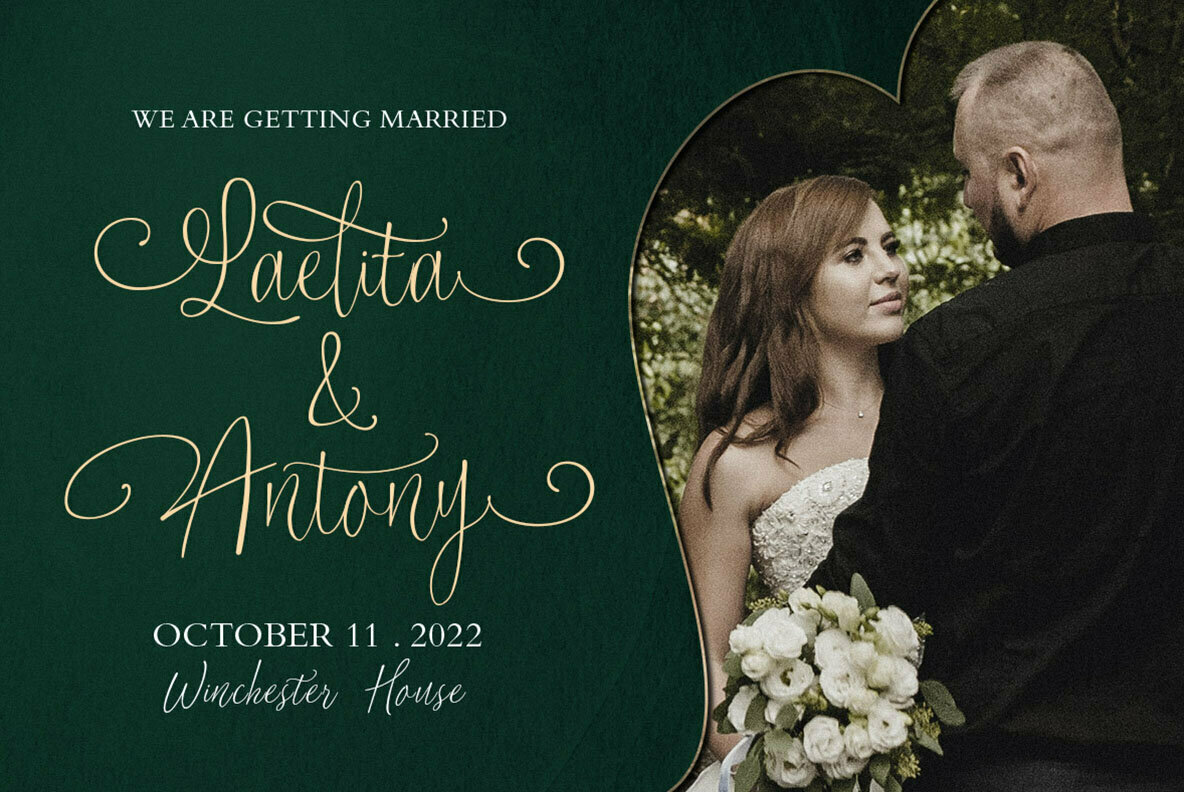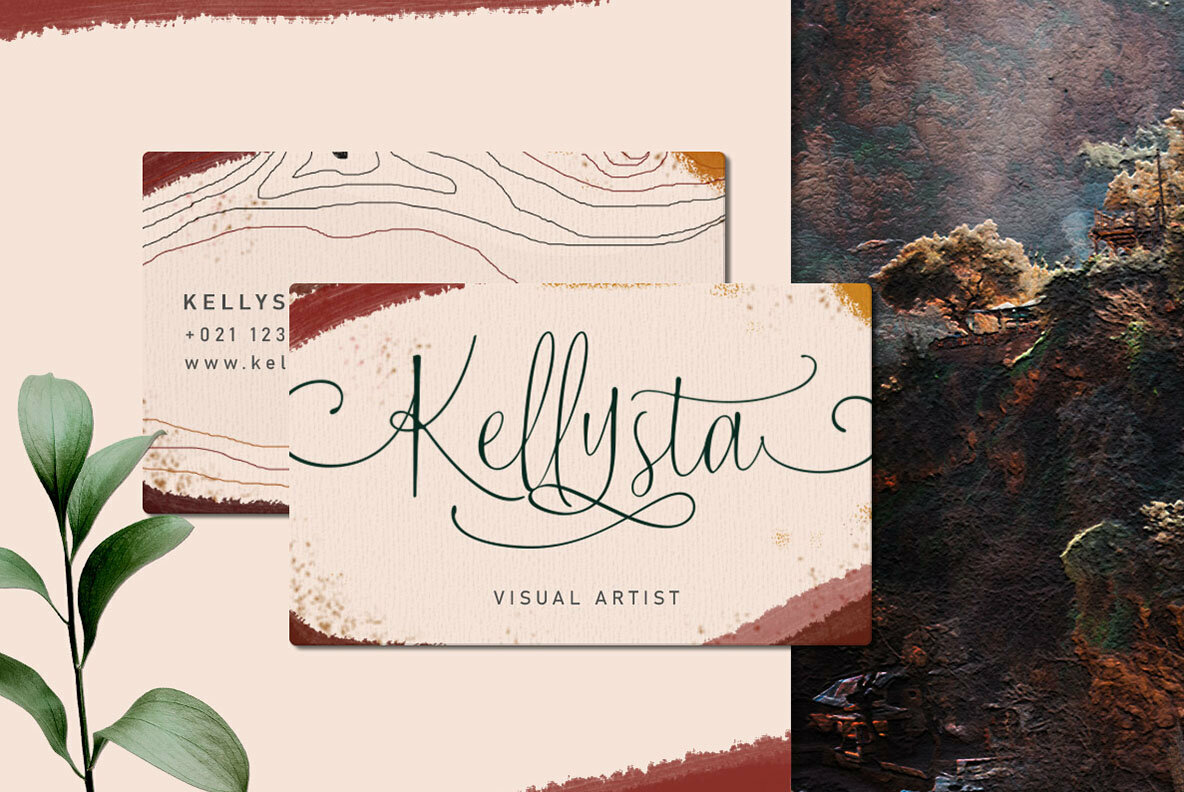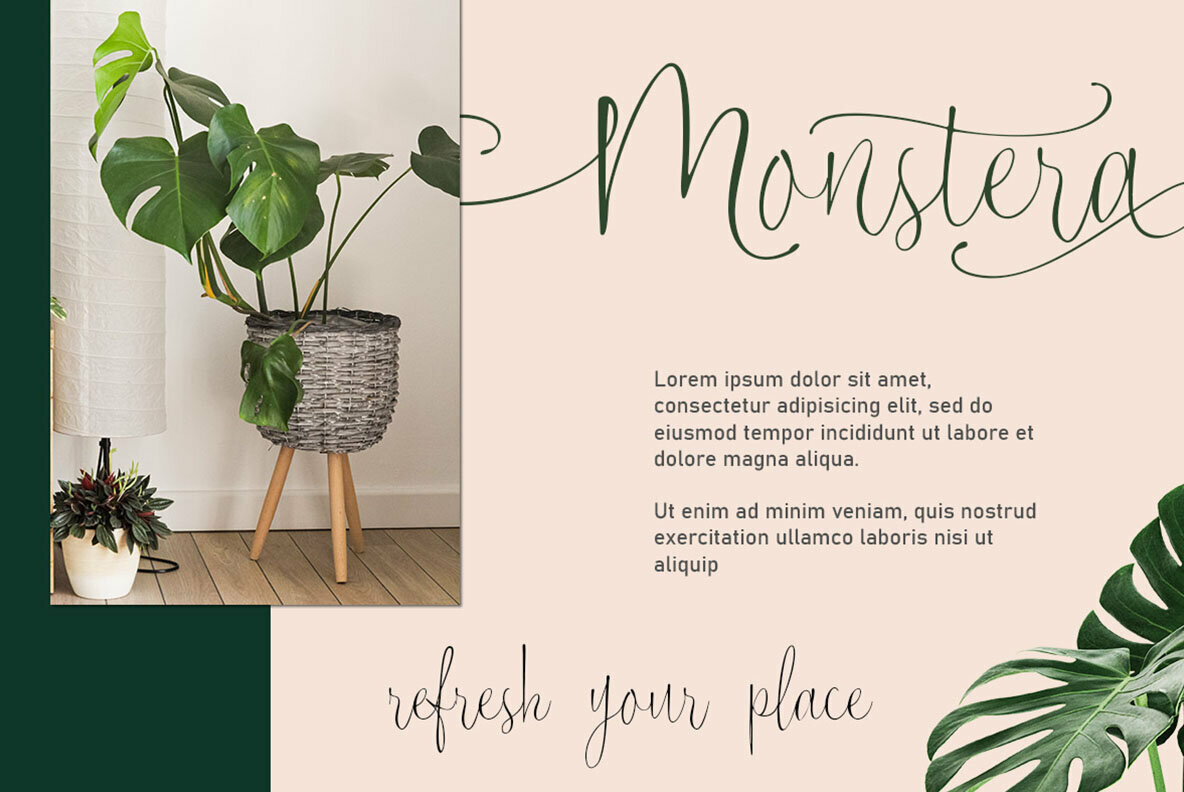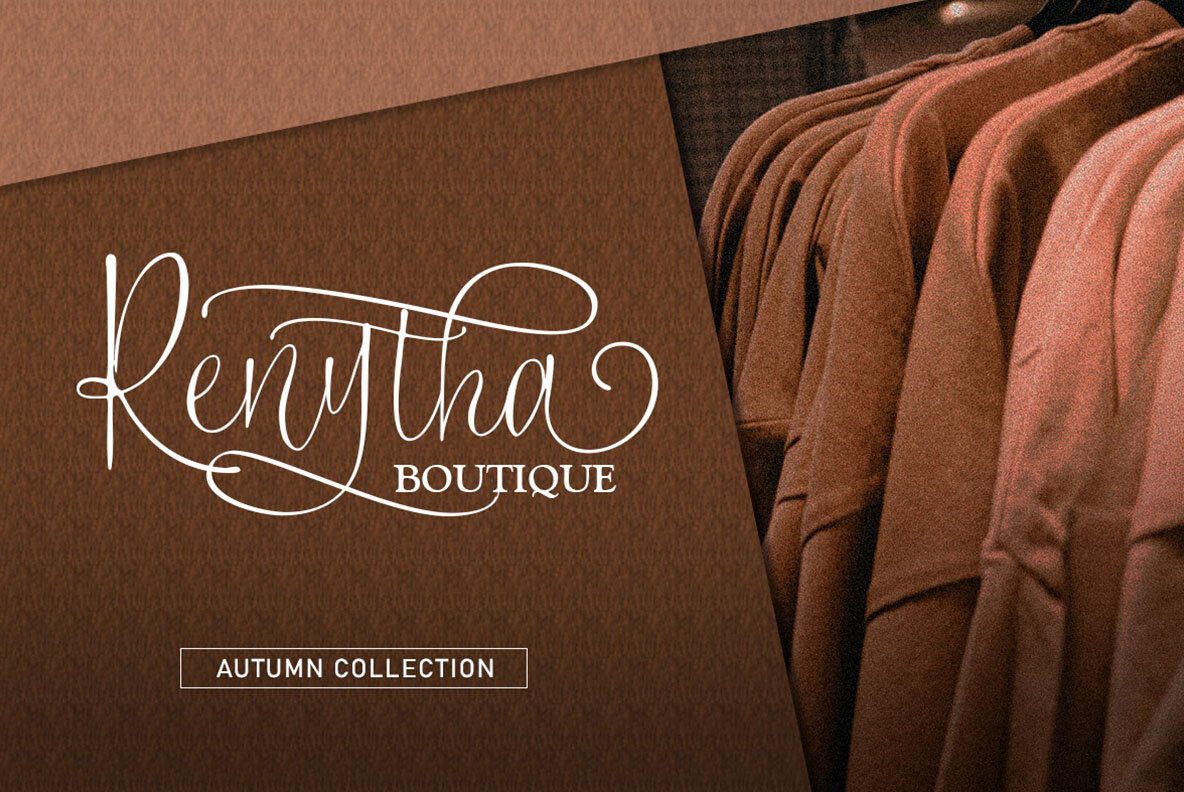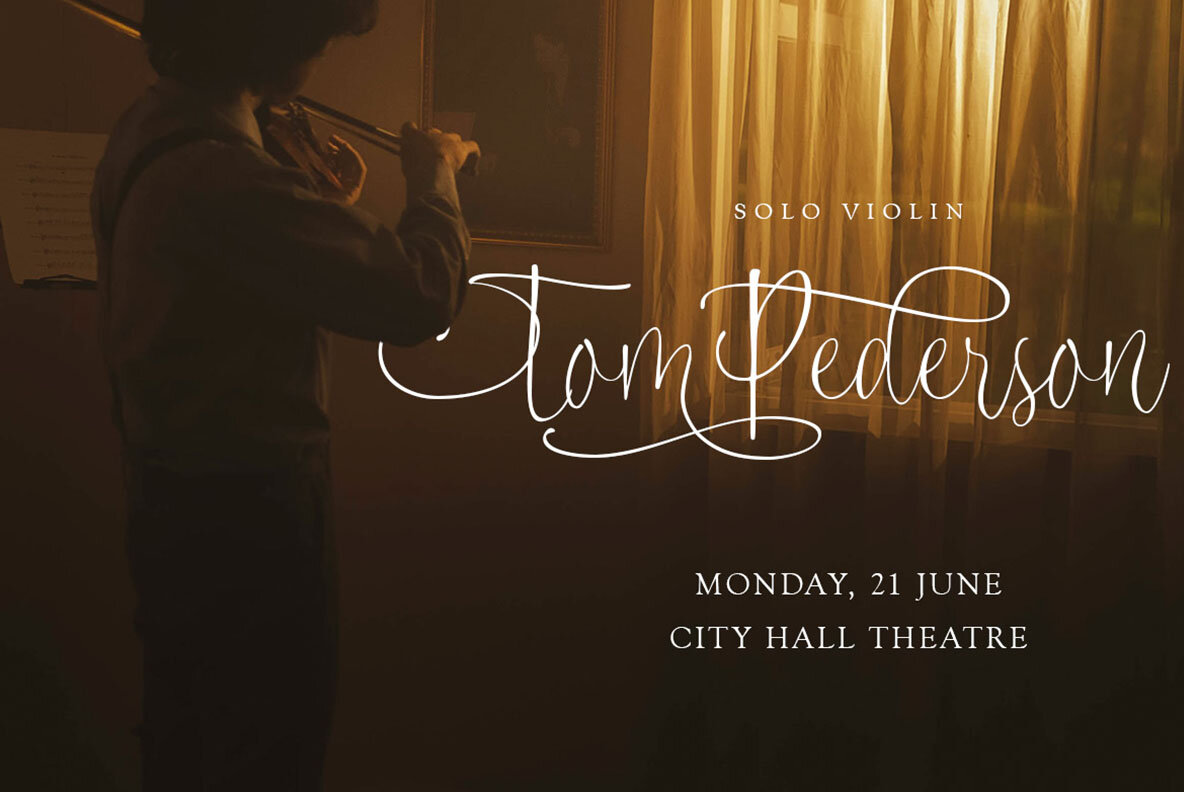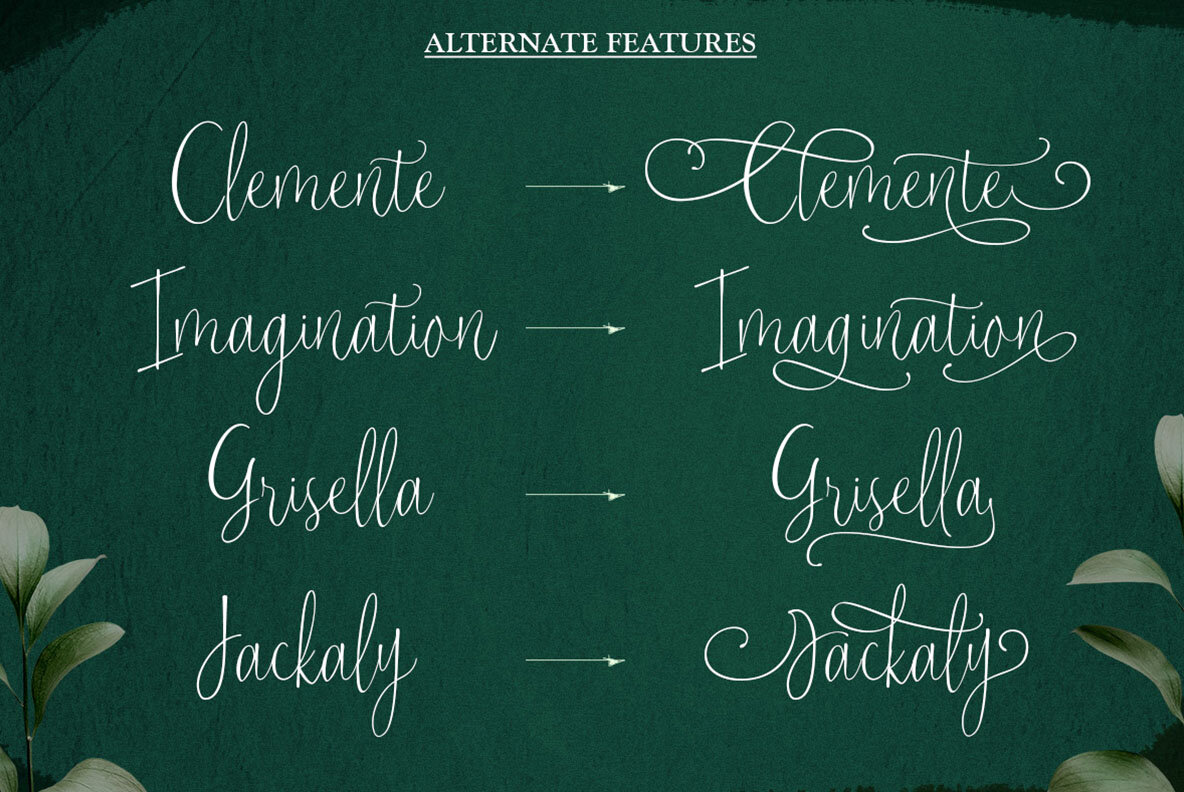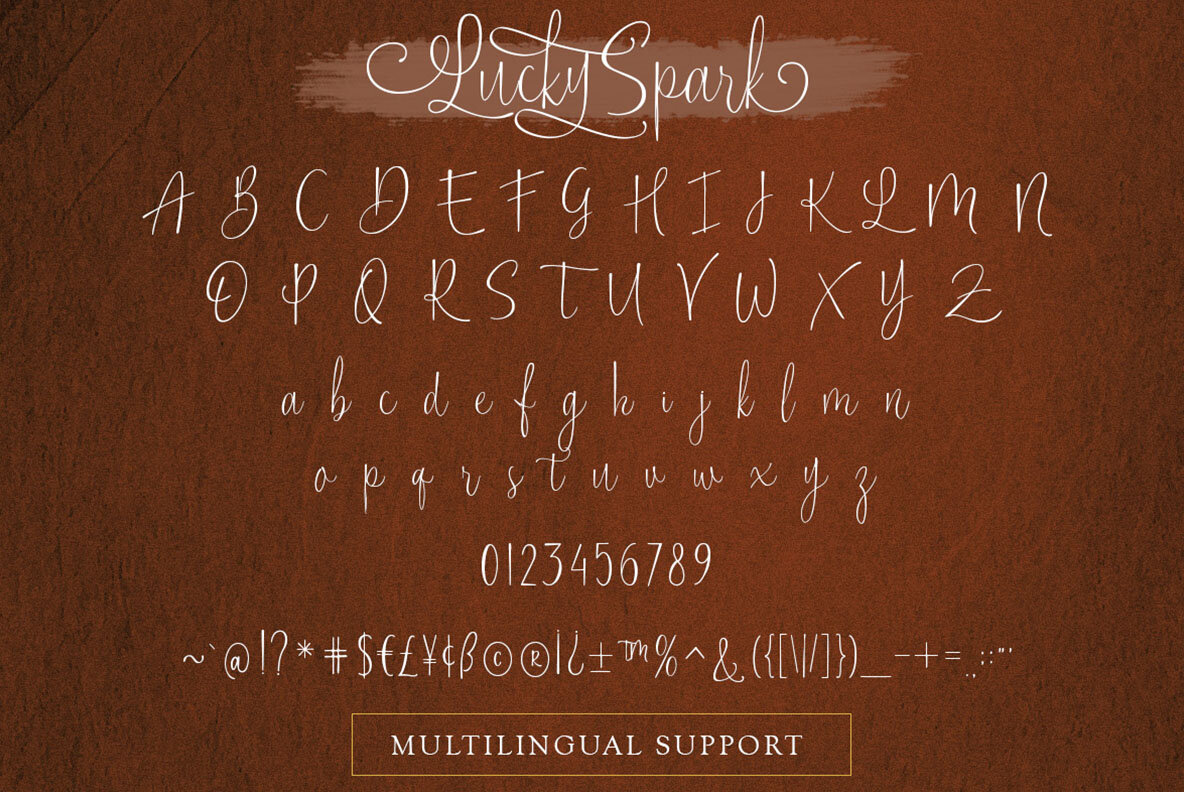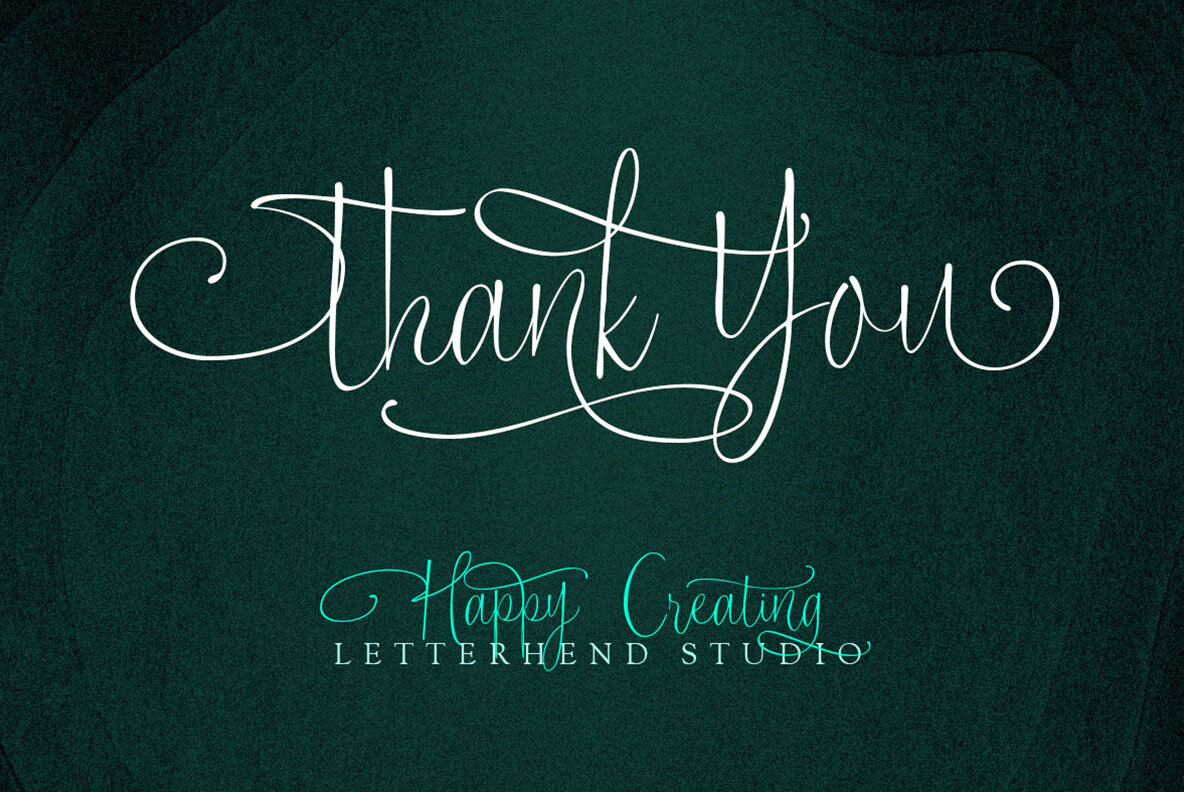
Lucky Spark: Enchanting Script With Elegant Swashes
Lucky Spark Script offers a blend of elegance and customization, with its graceful swashes lending a personalized touch to any project. Ideal for logos, invitations, and more, this script font enhances both formal and creative designs, infusing them with a sense of charm and uniqueness.
• Logos and branding materials
• Invitations and greeting cards
• Magazine layouts and book covers
• Packagings and labels
• Fashion and beauty projects